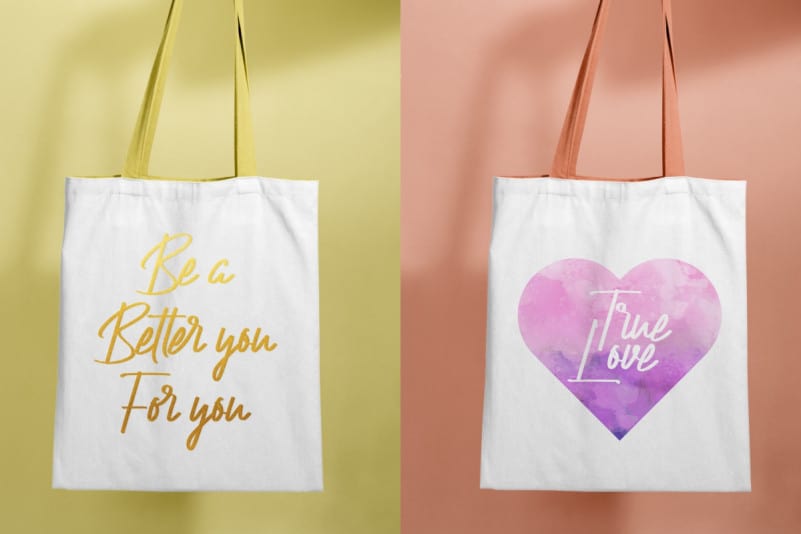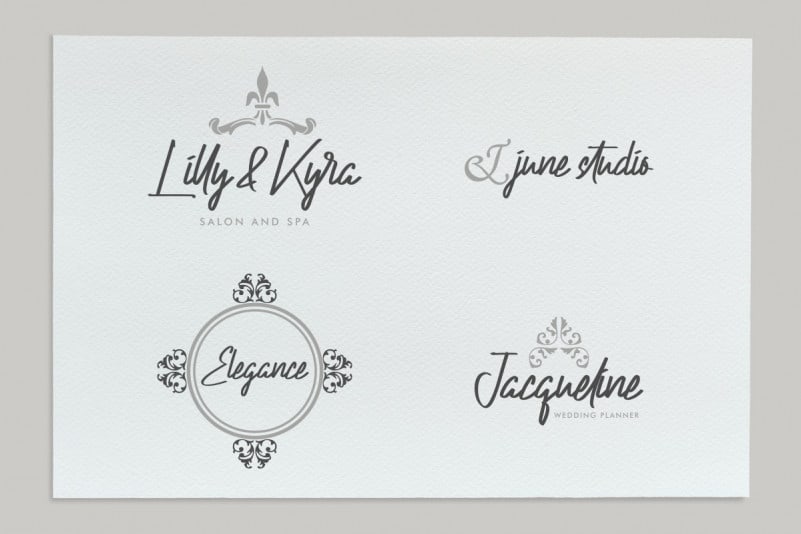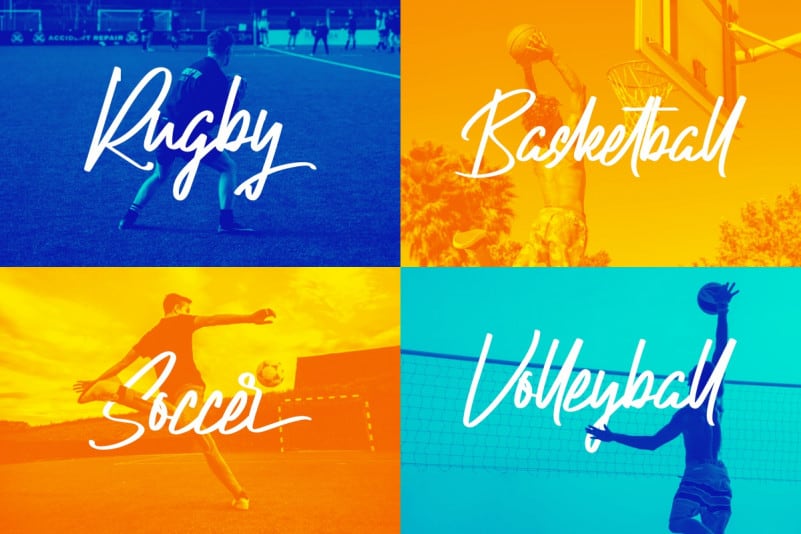
Actinide Signature Font
Actinide Signature Font is a hand lettering signature font by NihStudio. Actinide signature font will be awesome for many projects (some require extended license) including : branding, logo, stationery, business card, signage, flyer, brochure etc. The theme style of the font is elegant, handmade, old, casual, vintage, stylish, sophisticated and classic brush style. The font will be match for this typeface: wedding, events, real estate, architect, law firm, florist, gardening, makeup artist, travel, hotel, musician etc